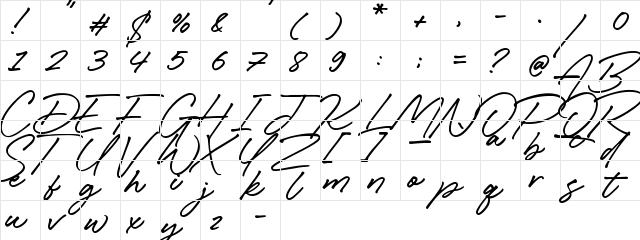
Caliway Regular
Design Context for Caliway Typeface
Caliway is a composed and adaptable typeface that performs quietly and consistently across a wide range of design contexts.